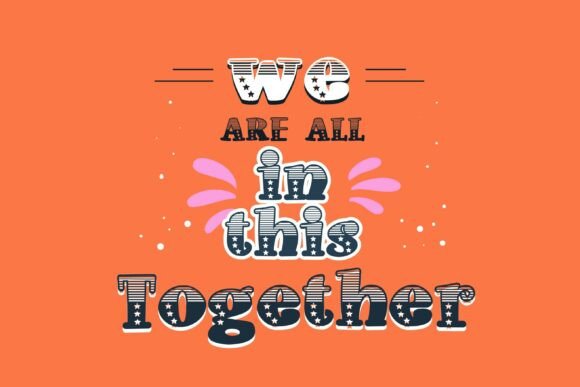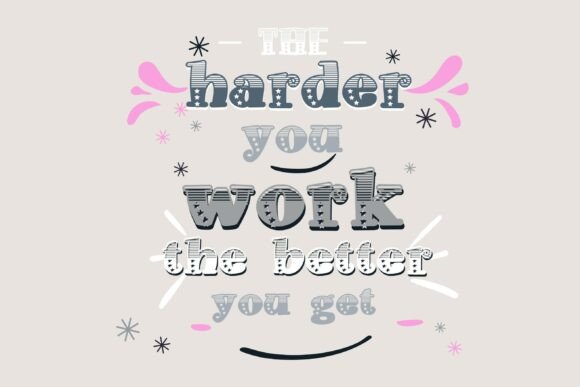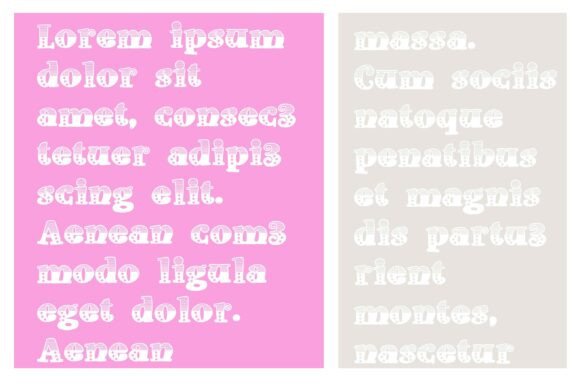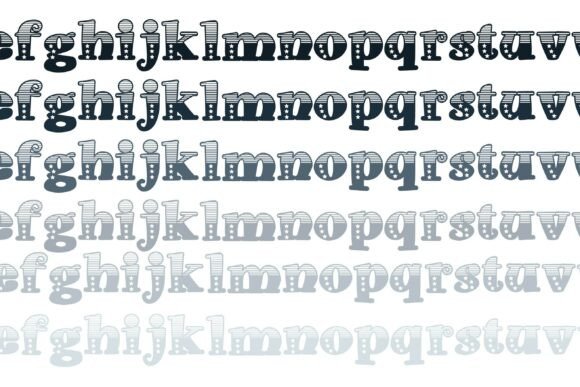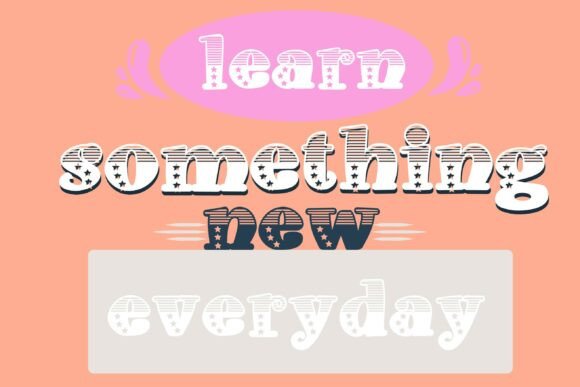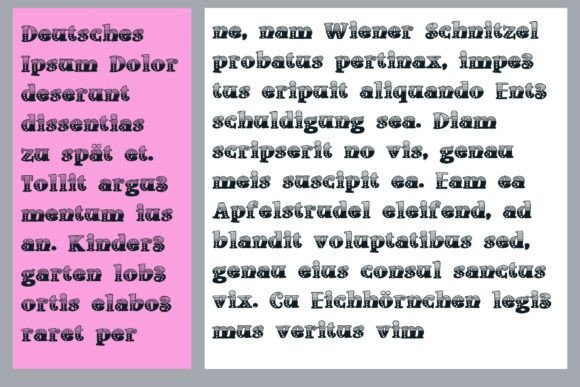
Introducing Doohickey Patriot Font: Add a Touch of Retro Fun and Industrial Whimsy to Your Seasonal Layouts
Are you looking for a unique and eye-catching font to add a touch of retro fun and industrial whimsy to your seasonal layouts? Look no further than the Doohickey Patriot Font, a charming decorative font crafted by Illustration Ink. This delightful font is perfect for designers and crafters who want to bring a bold, mechanical charm to their holiday text.
A Unique and Eye-Catching Typeface
Doohickey Patriot features blocky, extra-thick serif letterforms with a lively visual rhythm, making it perfect for headlines and titles. The font’s characters are split into distinct patterned halves, with the upper half styled with fine horizontal pin-striping, while the weighted bottom curves are filled with bold five-point stars. This unique design gives the font a heavy visual weight and classic slab-serif accents, reminiscent of mid-century machinery.
Doohickey Patriot is an exceptional asset for various holiday projects, including children’s Fourth of July party invitations, festive school event flyers, summer parade t-shirt prints, community block party banners, and custom vinyl crafting projects on Cricut or Silhouette. The font’s bold and playful design makes it perfect for adding a touch of holiday cheer to any project.
Key Features of Doohickey Patriot Font
- Blocky, extra-thick serif letterforms with a lively visual rhythm
- Characters split into distinct patterned halves: upper half with fine horizontal pin-striping and weighted bottom curves filled with bold five-point stars
- Heavy visual weight and classic slab-serif accents for a mid-century machinery look
- Perfect for holiday projects, including Fourth of July party invitations, festive school event flyers, summer parade t-shirt prints, and more
- Compatible with Cricut and Silhouette for custom vinyl crafting projects
Tips for Using Doohickey Patriot Font
To get the most out of Doohickey Patriot Font, here are a few tips:
- Use it for headlines and titles to add a bold and playful touch
- Pair it with a simple font for body text to create a striking contrast
- Don’t be afraid to get creative and try out new and unique design ideas
Why Choose Doohickey Patriot Font?
So why choose Doohickey Patriot Font for your holiday projects? Here are just a few reasons:
- Unique and eye-catching design that stands out from the crowd
- Perfect for adding a touch of retro fun and industrial whimsy to your designs
- Compatible with a range of design software and cutting machines
- Easy to use and customize for your specific design needs
In conclusion, Doohickey Patriot Font is a charming decorative font that is perfect for designers and crafters who want to add a touch of retro fun and industrial whimsy to their holiday projects. With its unique and eye-catching design, heavy visual weight, and classic slab-serif accents, this font is sure to stand out from the crowd. Whether you’re creating Fourth of July party invitations, festive school event flyers, or custom vinyl crafting projects, Doohickey Patriot Font is an exceptional asset that is sure to delight.